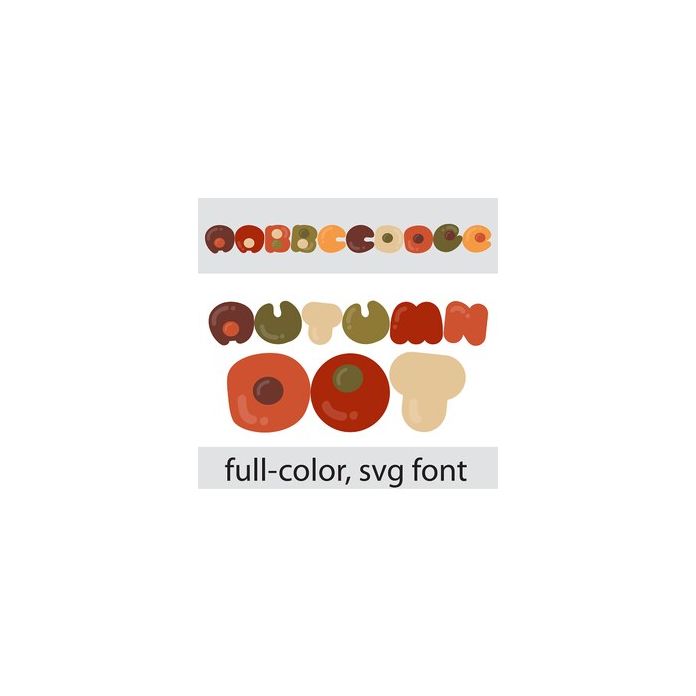
This full-color font features rounded lettering with dots throughout in an autumn color palette. There is an alt case w/ additional colors you can access through your system or Silhouette's glyph map.